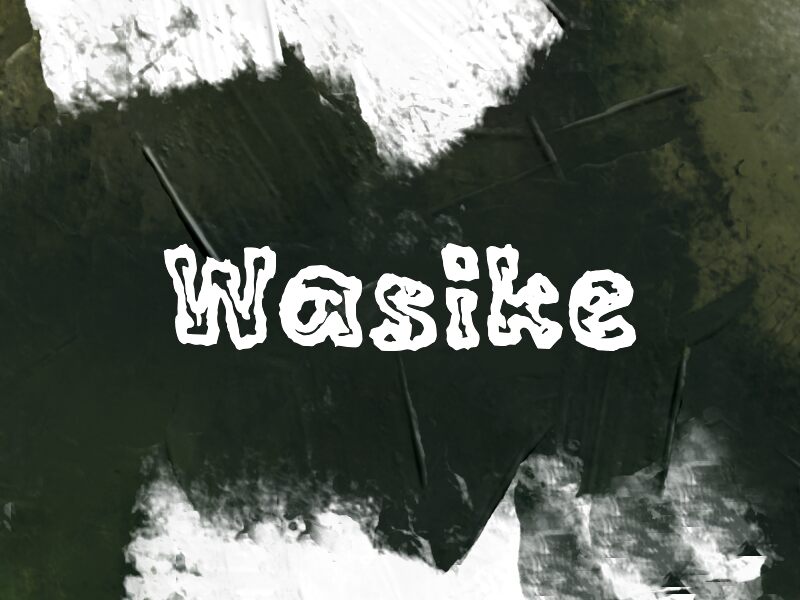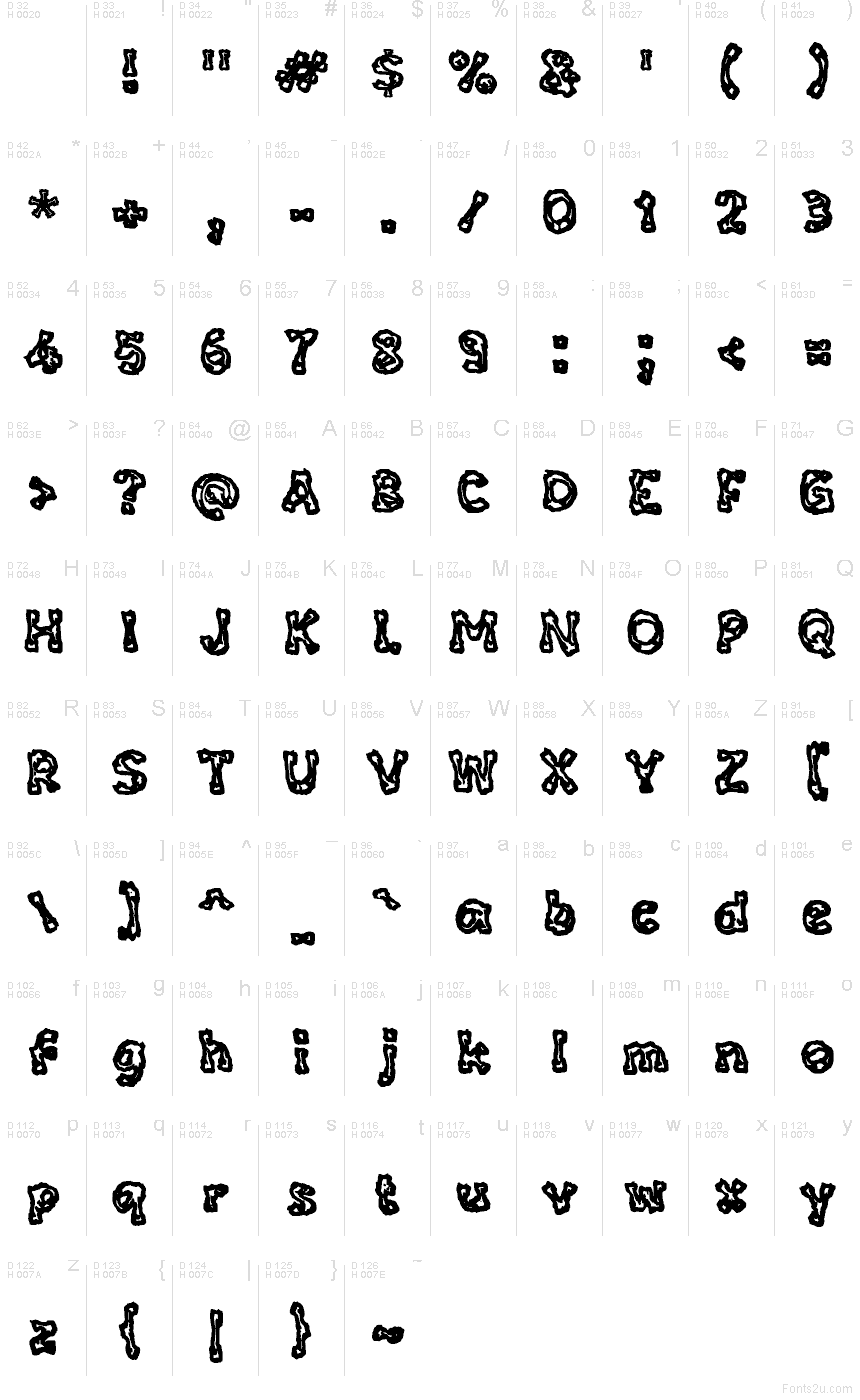
Wasike
Wasike font by wepfont.com is a free decorative display typeface that oozes with thick, inky shapes and warped outlines. Each letter looks as if it’s melting or bubbling up from the page, with uneven edges and dense black fills that feel almost wet to the touch. The result is loud, messy in the best way, and instantly sets a creepy, chaotic mood without needing extra graphics.
Using Wasike, this free font really shines on horror posters, Halloween party invitations, spooky game titles, haunted house signage, edgy album covers, and eerie YouTube thumbnails. Its chunky, irregular forms grab attention at large sizes and create a strong, grungy texture across short words and headlines. For balance, pair Wasike with a clean, simple sans serif for body text and keep it to a few impactful words per line.